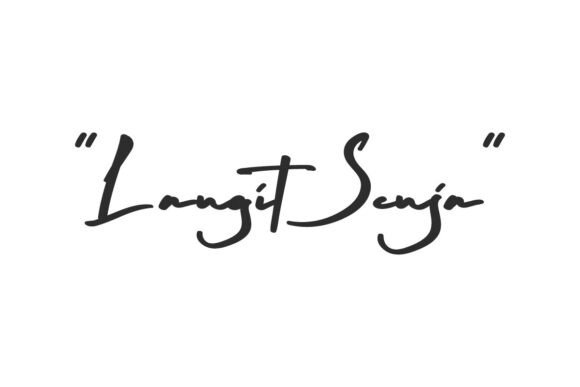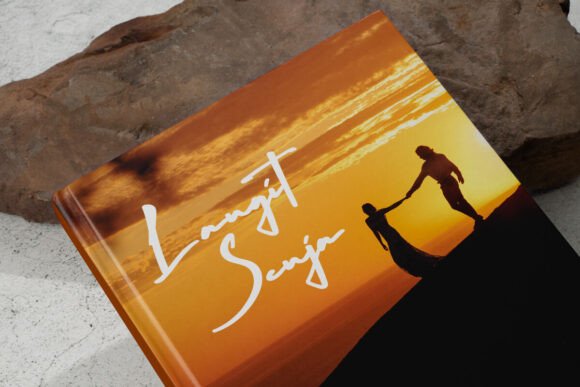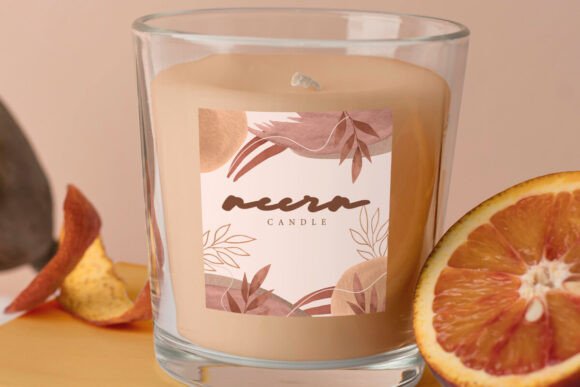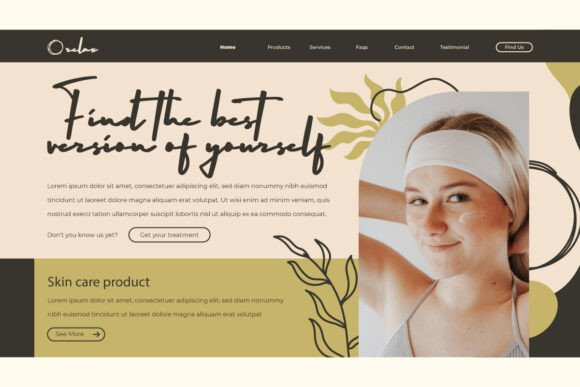
Langit Senja Font: A Stylish Brush Script for Signature & Branding
About the Langit Senja Font
Experience the unique personality of Langit Senja Font, a font designed for impact. Langit Senja Font is a strong, beautiful brush ink writing font with a classic style. It has its own charm that will enhance your design, such as apps, blog, brand logo, brochure, catalog, cover, creative template, greeting card, invitation, label, mockup design, product packaging, quote, screen print, signage, signature, stationery, sticker, tags, title, watermark, website, and many more!
Langit Senja’s bold brush strokes make it ideal for headlines, logos, and short impactful statements on packaging or posters. Its classic style lends itself well to branding projects requiring a touch of vintage elegance. However, its strong character and varying stroke weights make it less suitable for body text or UI elements where high readability is crucial.
Pairing Langit Senja with a clean sans-serif like Open Sans for body copy creates a balanced contrast. For a more luxurious feel, consider pairing it with a delicate serif font such as Lora. A geometric sans-serif like Montserrat can also work well, providing a modern counterpoint to the font’s organic brush strokes.
The overall personality of Langit Senja is confident and sophisticated, with a hint of rustic charm. It works best for brands conveying a sense of heritage, quality craftsmanship, or artistic expression. Avoid using it for projects needing a minimalist or overly modern aesthetic.
Langit Senja Font Usage Examples
Langit Senja Font Example